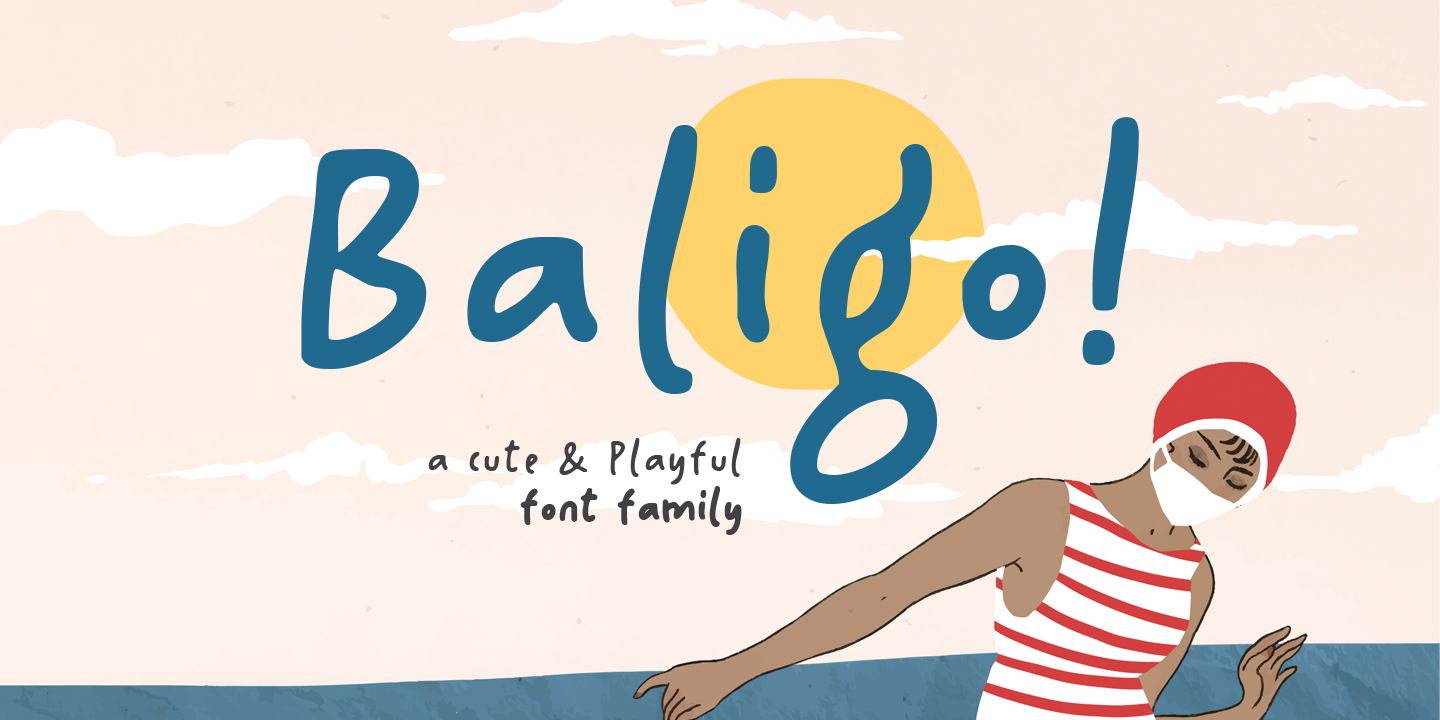
Baligo Font is perfect for creative branding, artistic projects, magazine headlines, book covers, poster designs, music album artwork, and experimental graphic design. Its distinctive appearance makes it ideal for art galleries, creative studios, indie brands, cultural events, fashion magazines, and contemporary marketing materials.
Baligo Font is exciting because it pushes the boundaries of traditional typography with its unique blend of artistic expression and functional design. This innovative typeface combines unconventional letterforms with contemporary aesthetics, creating a distinctive visual language that stands out in today's crowded design landscape. The font's creative character makes it perfect for brands seeking to convey originality, artistic vision, and creative excellence.
The Baligo Font family includes multiple artistic variations: Regular, Light, Medium, Bold, and Condensed versions. Each style maintains the font's signature creative character while offering different levels of visual impact. The family also features alternative characters, stylistic sets, and decorative elements that provide designers with extensive tools for creating truly unique typographic compositions.
Baligo Font Free Download represents innovation in contemporary typography design. This exceptional typeface has been thoughtfully crafted to meet the needs of creative professionals while maintaining excellent readability and versatility. Whether you're developing artistic brand identities, creating cultural publications, or designing experimental marketing materials, this font delivers unmatched creativity and visual appeal.
The artistic inspiration behind Baligo Font makes it particularly suitable for creative agencies, cultural institutions, and innovative lifestyle brands. Its expressive yet balanced personality allows it to communicate creativity and sophistication while maintaining broad accessibility. The font's unique character supports projects that require both artistic merit and practical functionality.
Professional designers appreciate Baligo Font for its ability to transform ordinary communications into extraordinary visual experiences. The font performs beautifully in both display and headline applications, making it an invaluable resource for creative brand development. Its distinctive letterforms support multiple languages and include comprehensive character sets for international creative projects.
The innovative nature of Baligo Font makes it an ideal choice for brands wanting to establish creative, forward-thinking positioning. Its distinctive artistic personality enhances modern communications while creating memorable connections with audiences who appreciate originality, creativity, and cutting-edge design thinking.